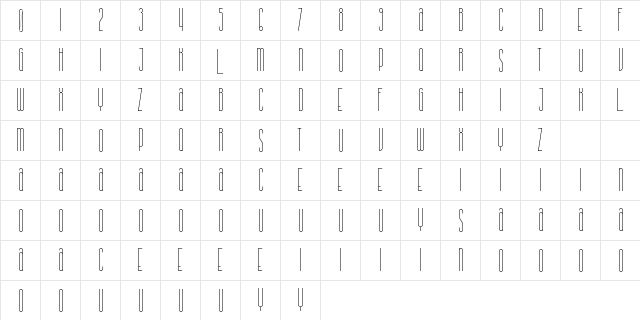
Kalpazan Regular
Design Context for Kalpazan Typeface
Kalpazan is a composed and adaptable typeface that performs quietly and consistently across a wide range of design contexts.